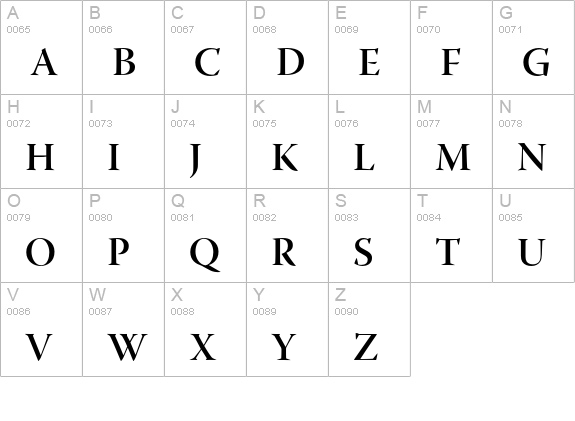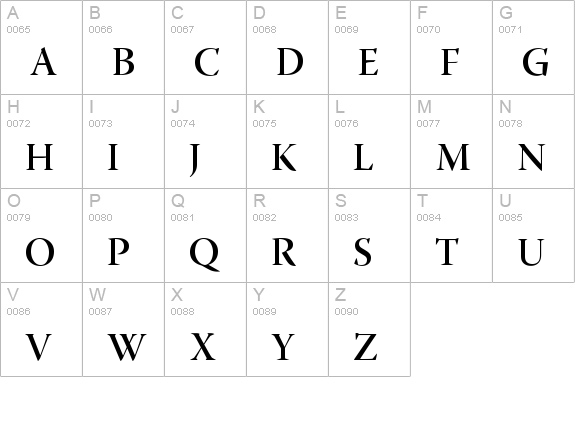
Warnock Pro Semibold Display is a sub-bold, structured variant in the Warnock typeface family \xE2\x80\x94 well suited to sub-headlines and emphasised passages.
Warnock Pro Semibold Display is a striking and versatile font that adds a touch of sophistication to any design project. With its bold and commanding presence, this font demands attention and conveys a sense of strength and confidence. Ideal for headlines, titles, and display purposes, Warnock Pro Semibold Display captivates with its bold and distinctive letterforms. Each character is meticulously crafted, with clean lines and strong, defined curves that exude elegance and professionalism. This font's versatility shines through in its ability to adapt to various design styles and themes. Whether you're creating a sleek and modern website, a classic and timeless print advertisement, or a bold and impactful poster, Warnock Pro Semibold Display will effortlessly enhance your message and capture the attention of your audience. But what sets this font apart is its accessibility. Unlike many other premium fonts, Warnock Pro Semibold Display is freely available to download at FontsMarket.com. This means that designers and creatives of all levels can enjoy the benefits of this exceptional font without any financial constraints. So why wait? Download Warnock Pro Semibold Display today and unleash its power in your next design project. With its strong presence, versatile nature, and free availability, this font is a must-have for any designer looking to make a bold statement.